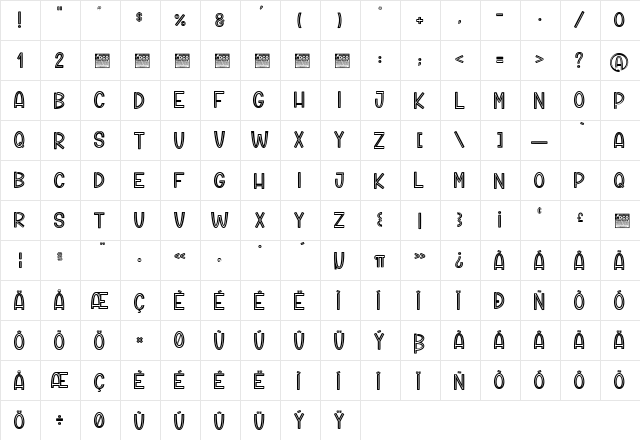
Lemon Sangria_PersonalUseOnly Regular
Design Context for Lemon Sangria_PersonalUseOnly Typeface
Lemon Sangria_PersonalUseOnly offers clean, dependable letterforms without strong stylistic allegiance, making it a practical choice for designers who need flexibility.